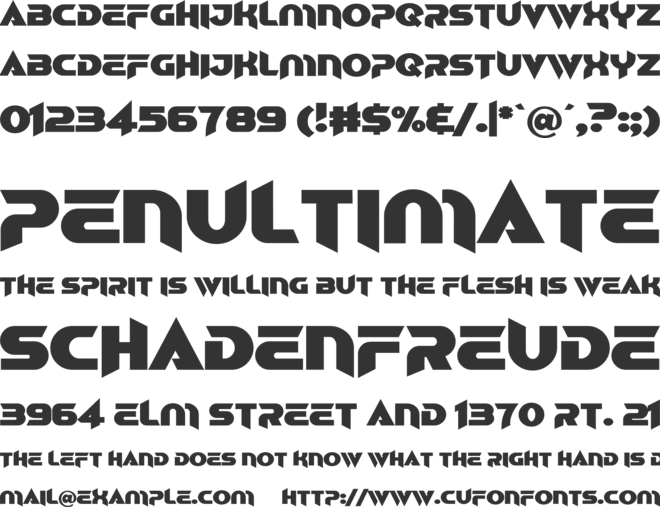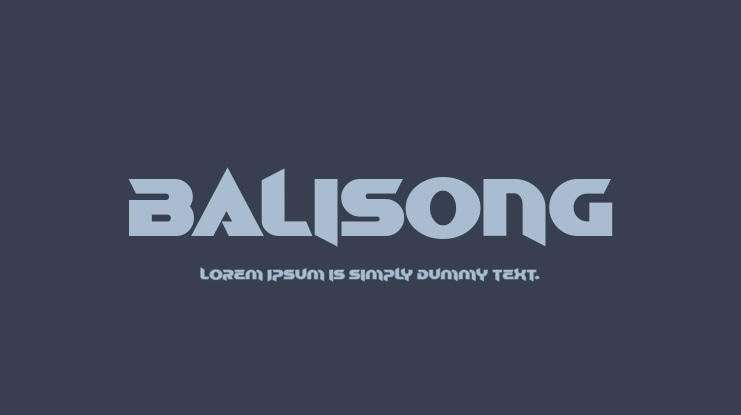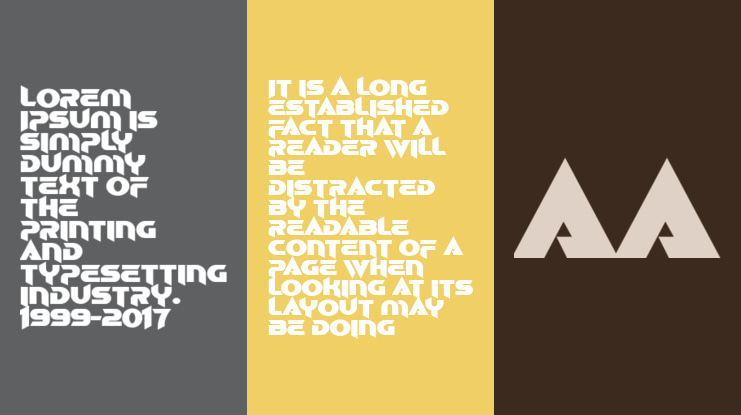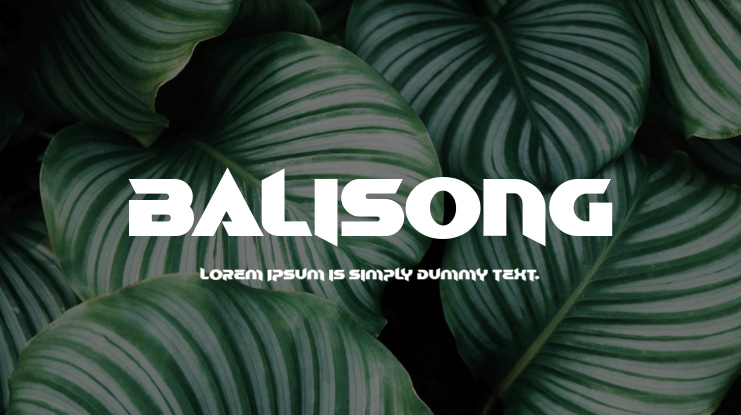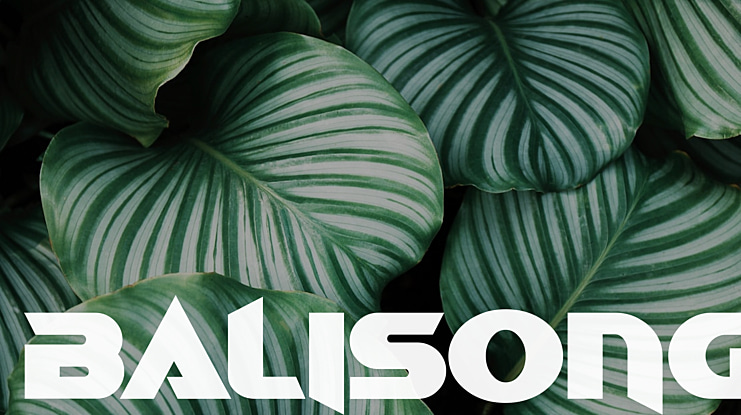
Introducing Balisong, an impressive font family that offers designers a range of creative possibilities. This versatile and striking font family combines modern aesthetics with timeless elegance, making it an ideal choice for various design projects.
Balisong Ultra Bold is the epitome of boldness, commanding attention with its robust, wide letterforms. Perfect for headlines, titles, and branding, this typeface allows you to make a powerful statement. Even at large sizes, it maintains readability with its confident and substantial appearance, while exuding sophistication through its clear and balanced design.
For a dynamic and expressive twist, Balisong Ultra Bold Italic is the go-to choice. This style adds energy and creativity to your design projects with its slanted and italicized letterforms. Whether it's creative headlines, artistic posters, or eye-catching logos, Balisong Ultra Bold Italic adds flair and emphasis.
Key features of the Balisong Font Family include its bold and wide letterforms, ensuring a cohesive visual identity across design projects. It strikes a harmonious balance between contemporary elegance and classic design principles, making it suitable for various applications. From advertising and packaging to web design and print media, Balisong effortlessly adapts to different design contexts. Despite their boldness and unique styles, both Ultra Bold and Ultra Italic maintain excellent legibility, ensuring your message gets noticed and understood.
Moreover, the Balisong Font Family includes comprehensive character sets, encompassing uppercase letters, numerals, punctuation marks, and essential symbols. It supports multiple languages, making it accessible to a global audience.
Despite its bold and assertive nature, Balisong retains a friendly and approachable quality. It invites readers to engage with your content and leaves a memorable impression.
In conclusion, the Balisong font family empowers designers to choose between bold, assertive statements with Ultra Bold or to add a touch of creativity and emphasis with Ultra Italic. Whether you're crafting a logo, designing a poster, or creating a website, this font family allows for confident and stylish creative expression.